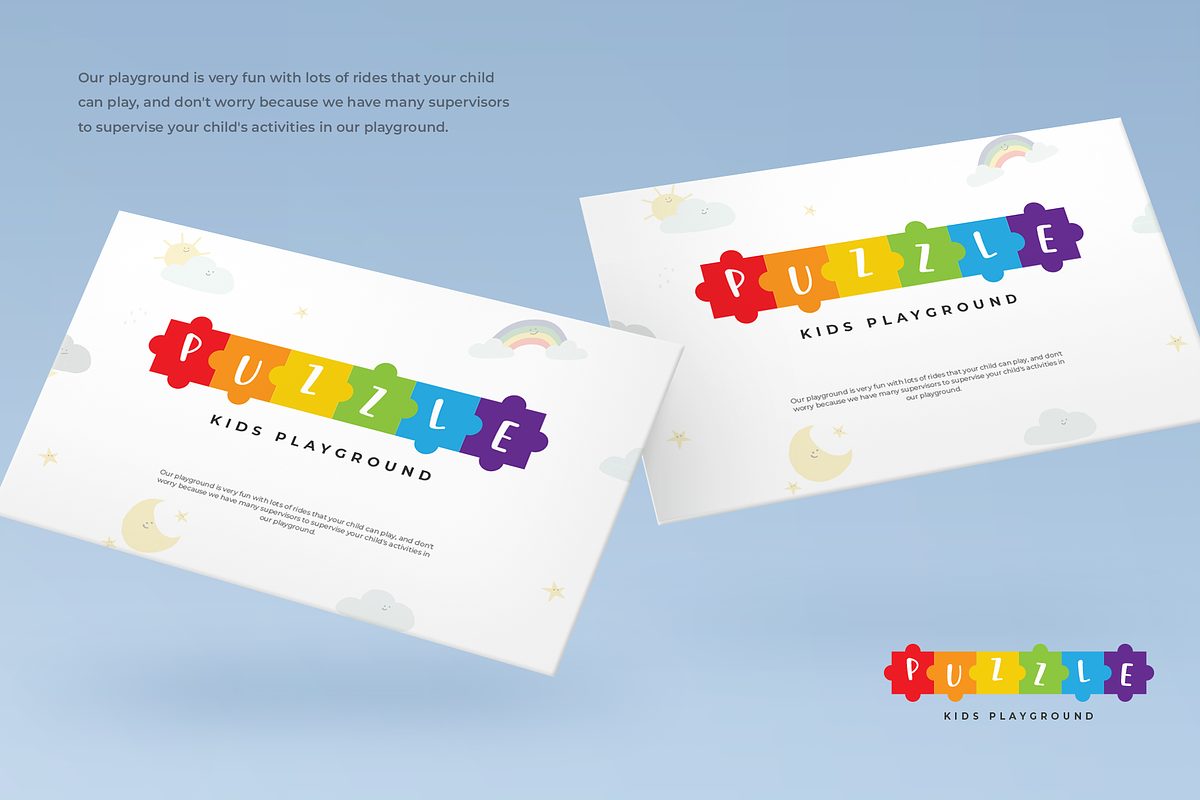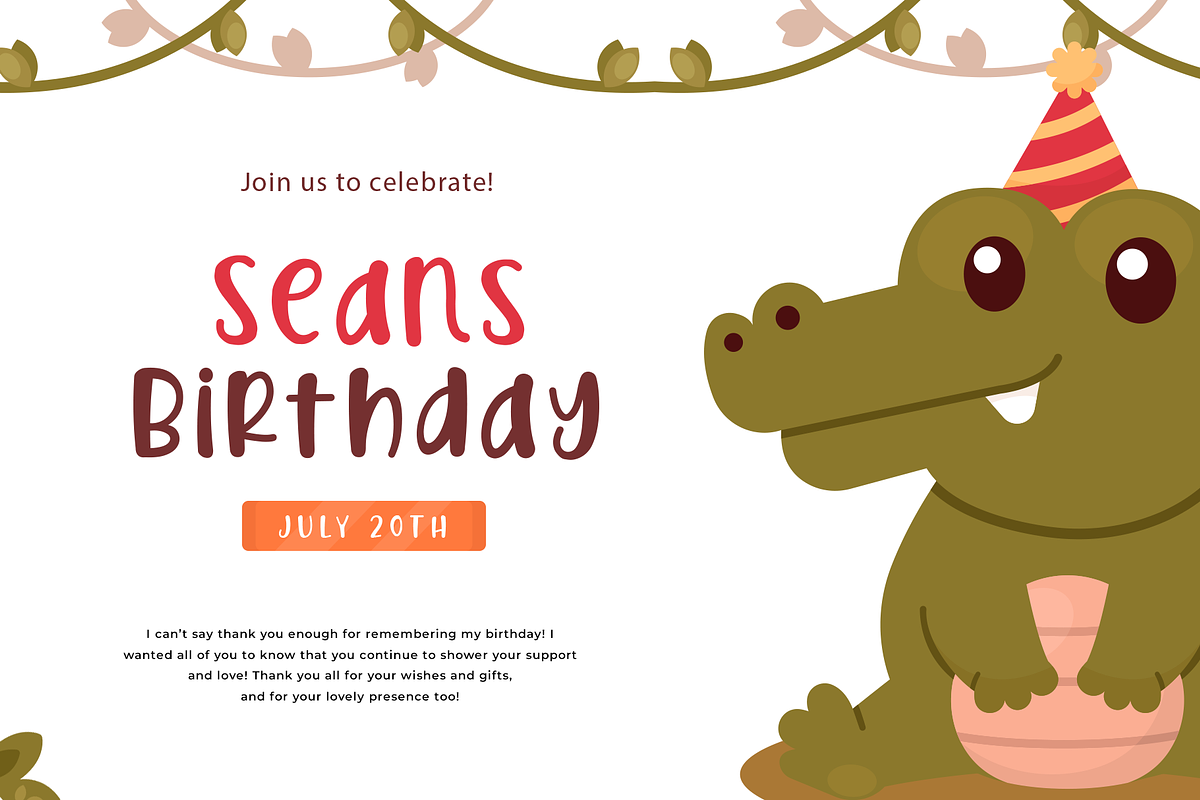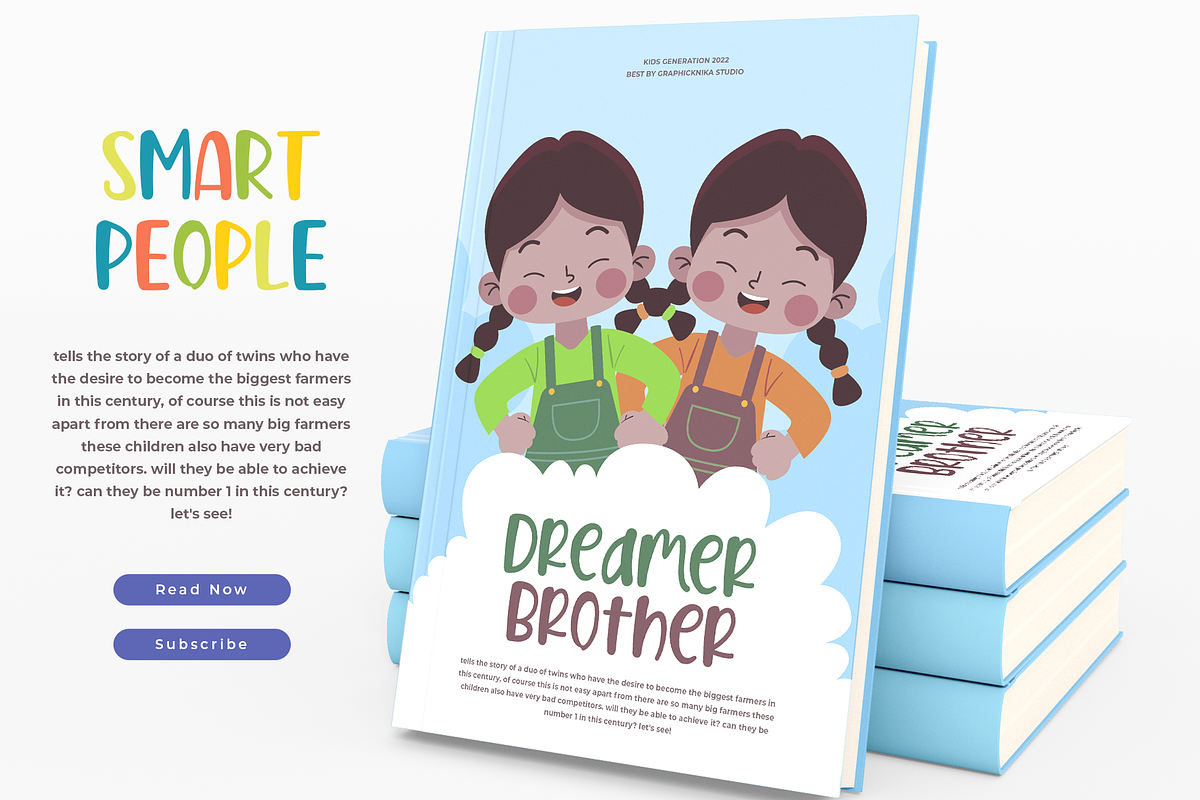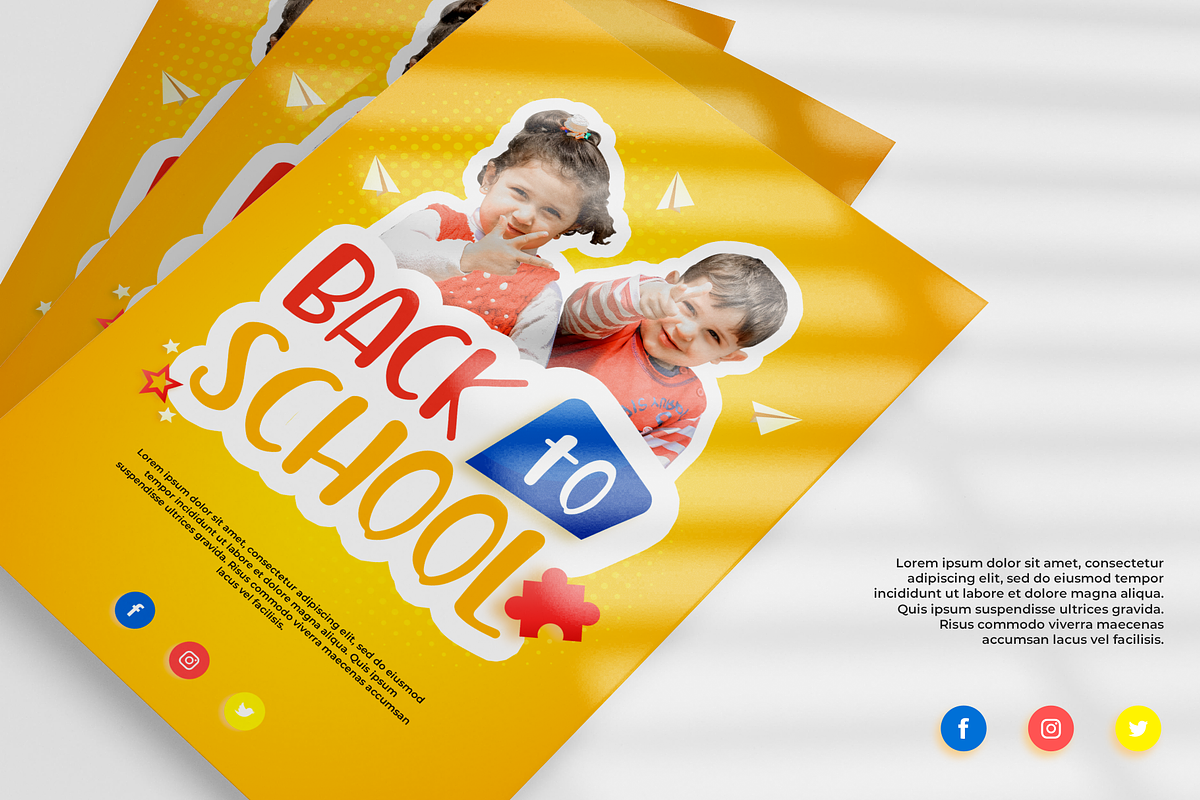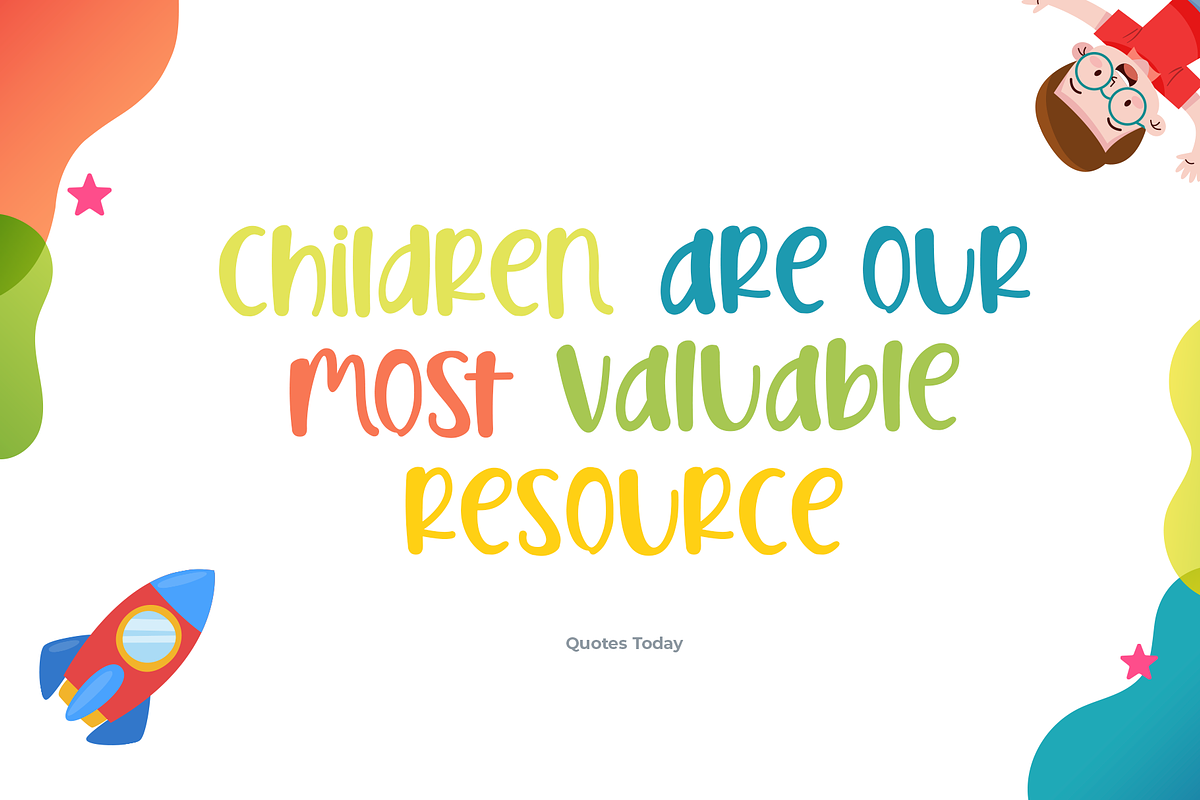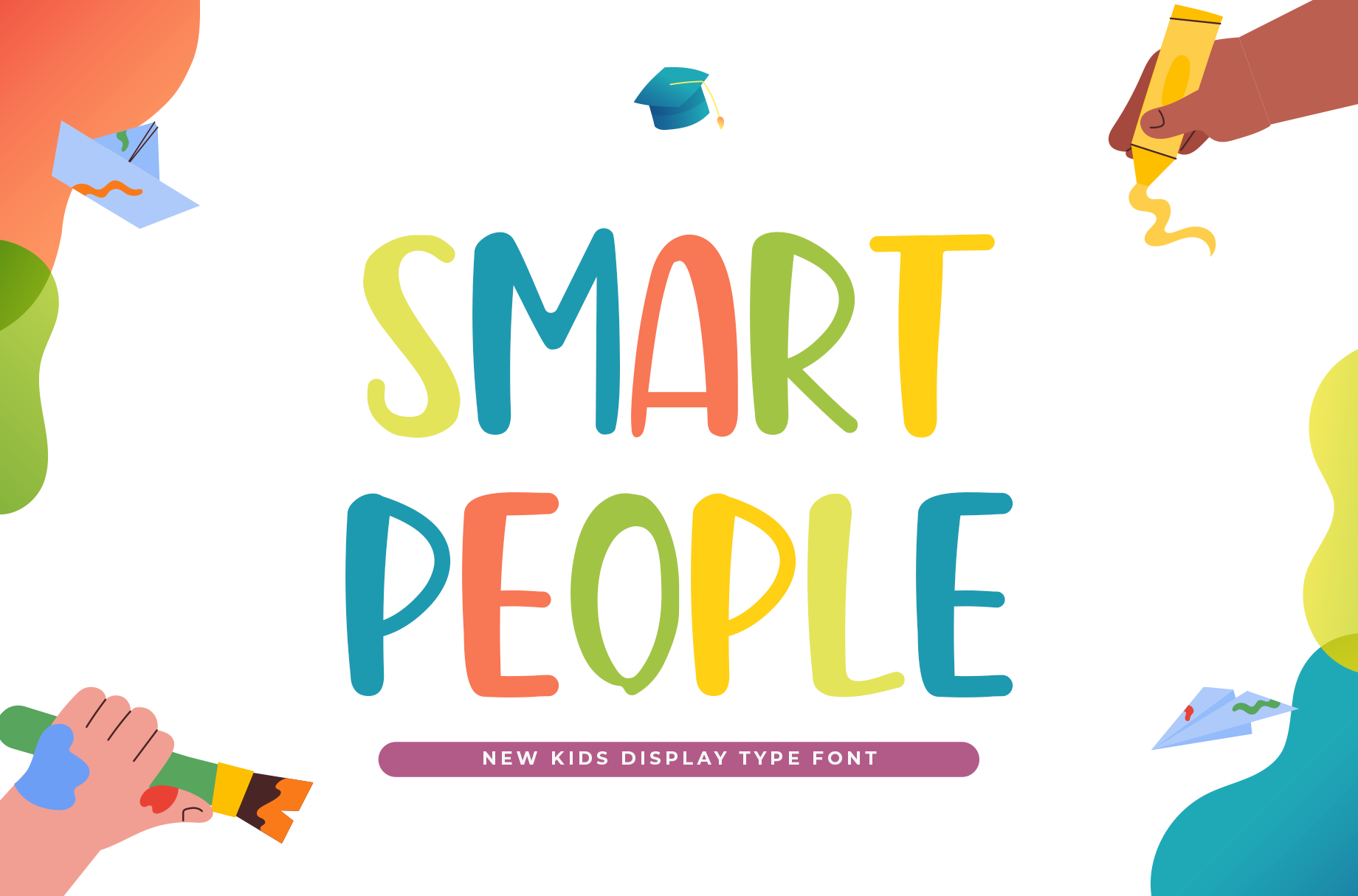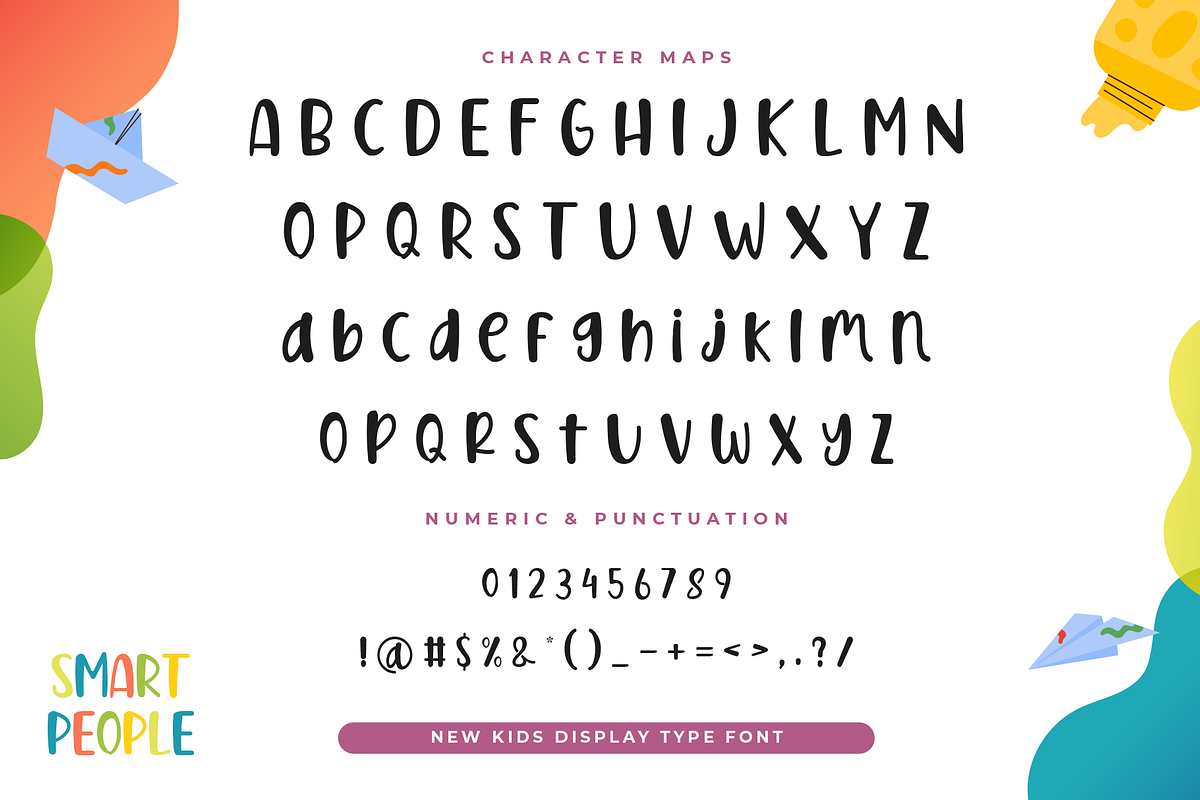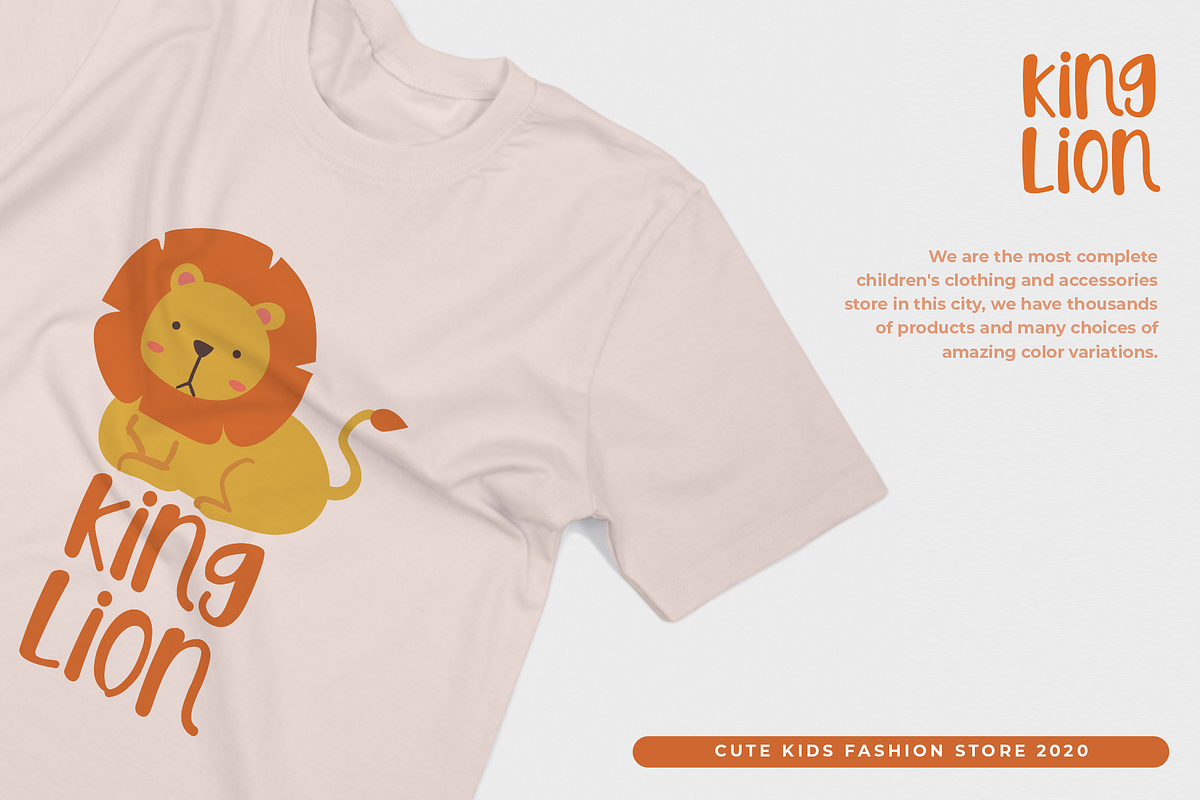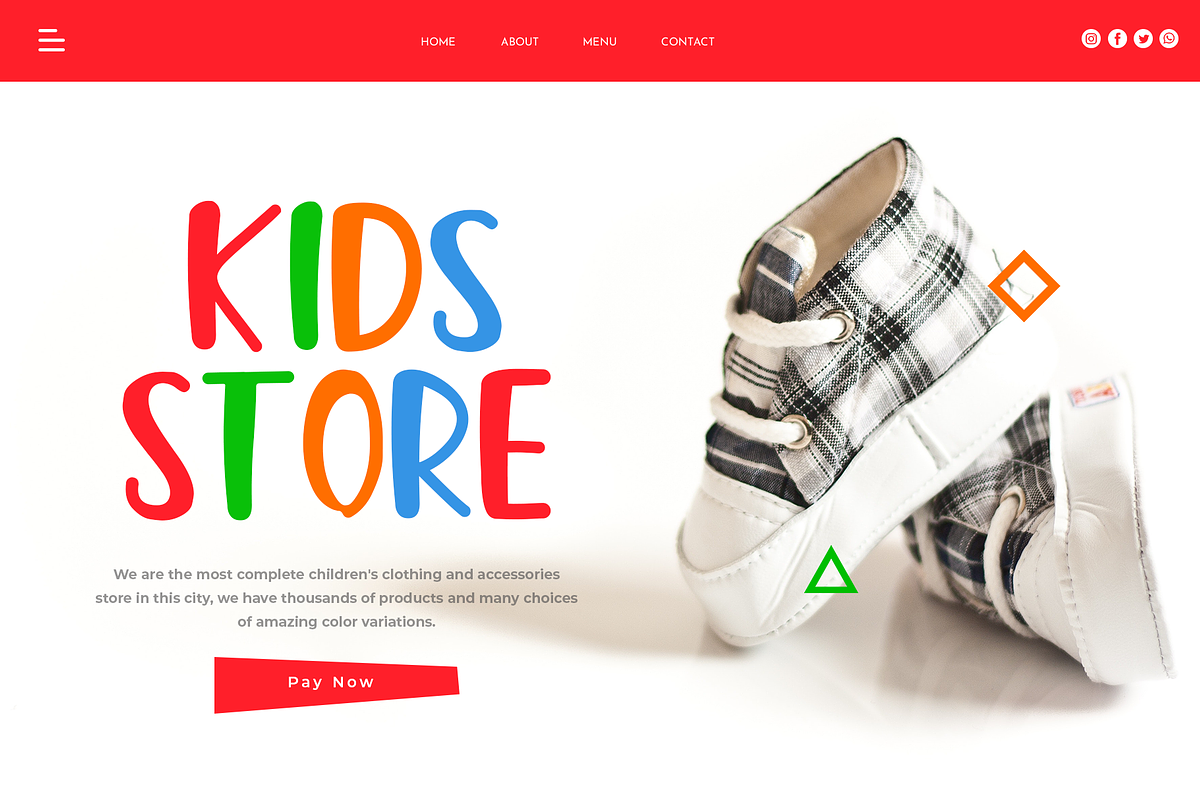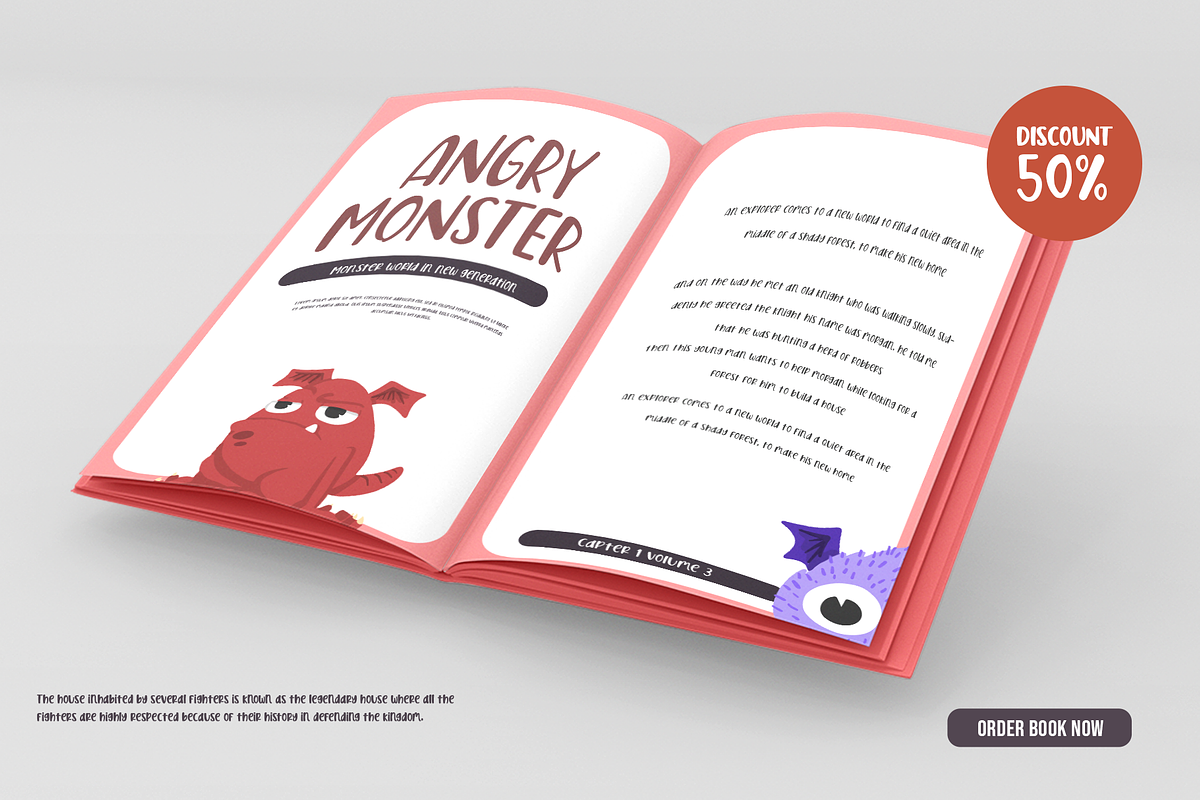
Smart People New Kids Display Font
Smart People New Kids Display Font is a vibrant, educational typeface designed for children’s learning materials. Perfect for school projects, educational apps, and kid-friendly branding, its colorful, playful letterforms inspire creativity and fun. Ideal for worksheets, posters, and digital media, this font blends intelligence with a cheerful vibe. Crafted for designers seeking an engaging aesthetic, Smart People enhances storytelling with its dynamic design. Suitable for print and online use, it brings a smart yet joyful touch to every educational application.